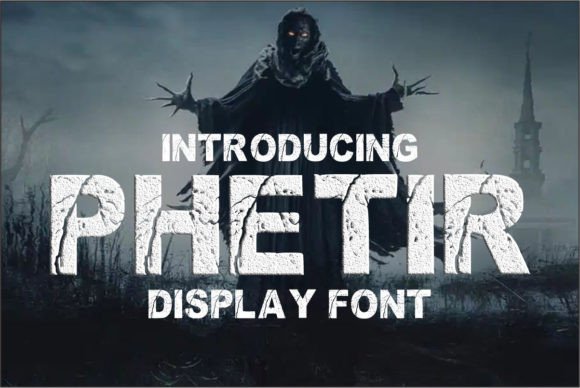
Welcome to the world of Phetir, an awe-inspiring display font that evokes the raw energy of power and speed. Gaze upon its electrifying letterforms, meticulously crafted to capture the essence of motion and dynamism. Whether your creative endeavors take you to the realm of cinematic masterpieces, captivating logos, or the expression of your artistic vision on T-shirts and backgrounds, Phetir stands as your steadfast companion, ready to ignite your imagination and bring your ideas to life.
Unleash the captivating spirit of Phetir and let its bold presence command attention. This font is a masterpiece, a symphony of sharp angles and fluid curves that blend seamlessly to create a visual feast. Each letter is a testament to precision, exuding an aura of strength and confidence that will elevate your designs to new heights.
With Phetir as your creative ally, you'll embark on a journey of endless possibilities. Dive into the world of box movie themes and let Phetir's energy infuse your projects with an electrifying ambiance. Craft logos that emanate power and leave a lasting impression on your audience. Turn ordinary T-shirts into canvases of creativity, adorned with Phetir's bold and captivating presence. Transform backgrounds into mesmerizing visual landscapes, where Phetir's aura captivates and inspires.
Step into the realm of creative freedom and let Phetir be your guiding light. Witness how this font breathes life into your designs, igniting a spark of inspiration that sets your imagination ablaze. Phetir is not just a font; it's a portal to a world where creativity thrives and boundaries dissolve. Embrace its power and watch as your ideas take flight, reaching heights you never thought possible.